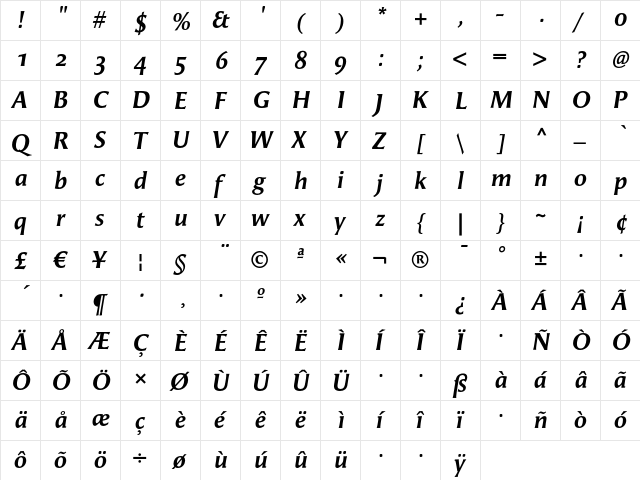
Angie BoldItalicOSF
Design Context for Angie Typeface
Angie takes a measured approach to typography — its balanced proportions and neutral character make it a reliable workhorse for both digital and print work. The slanted form adds forward momentum and visual energy. The heavy weight commands attention and anchors typographic hierarchies.